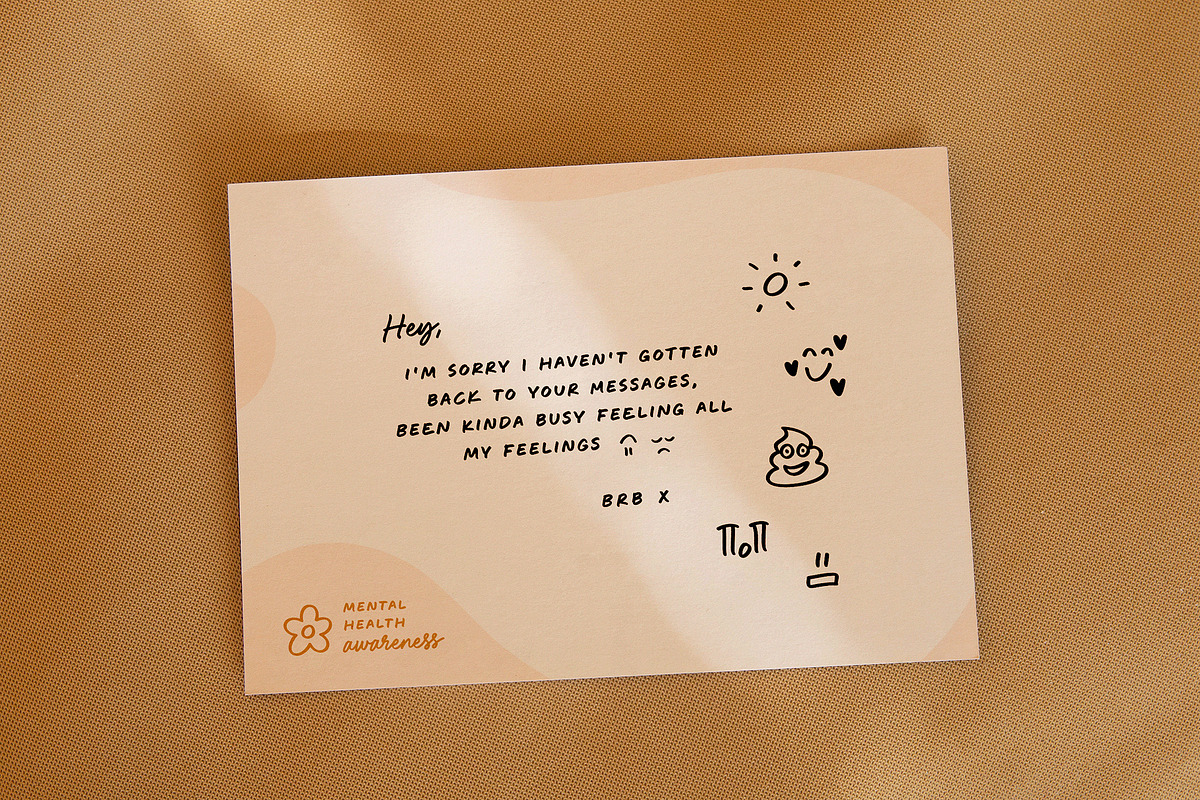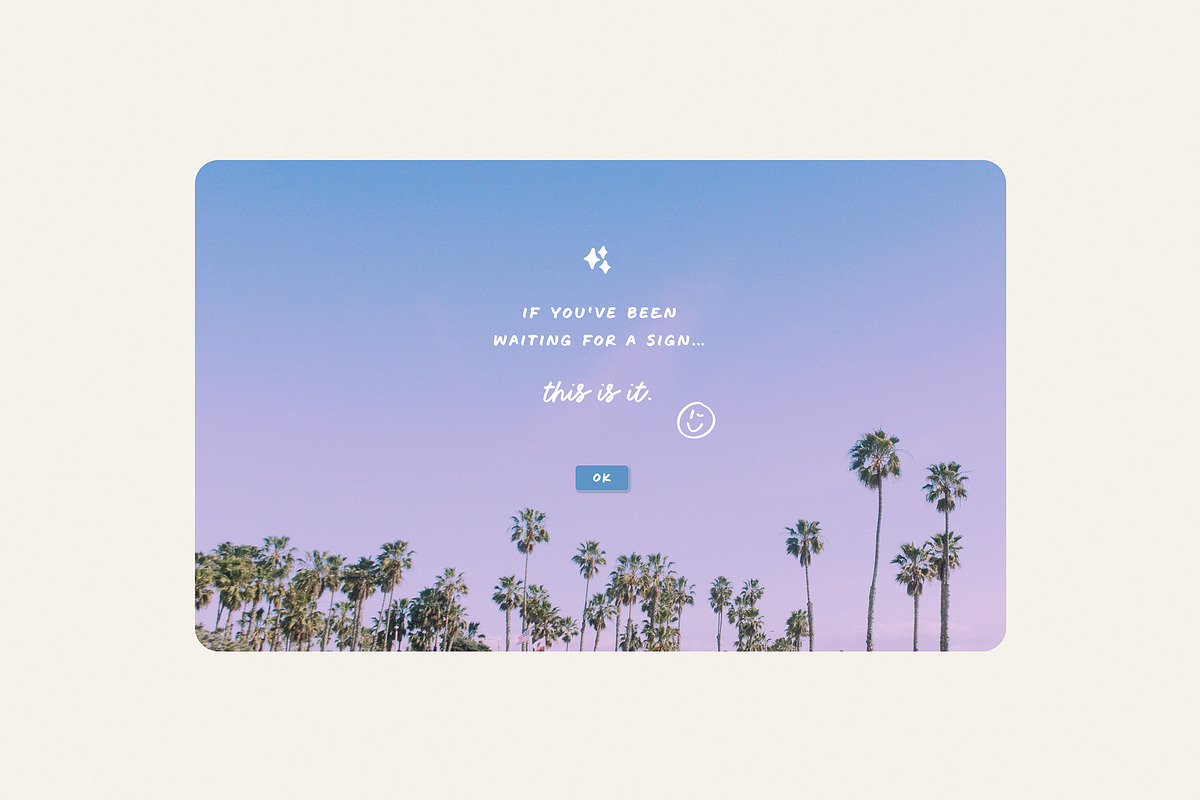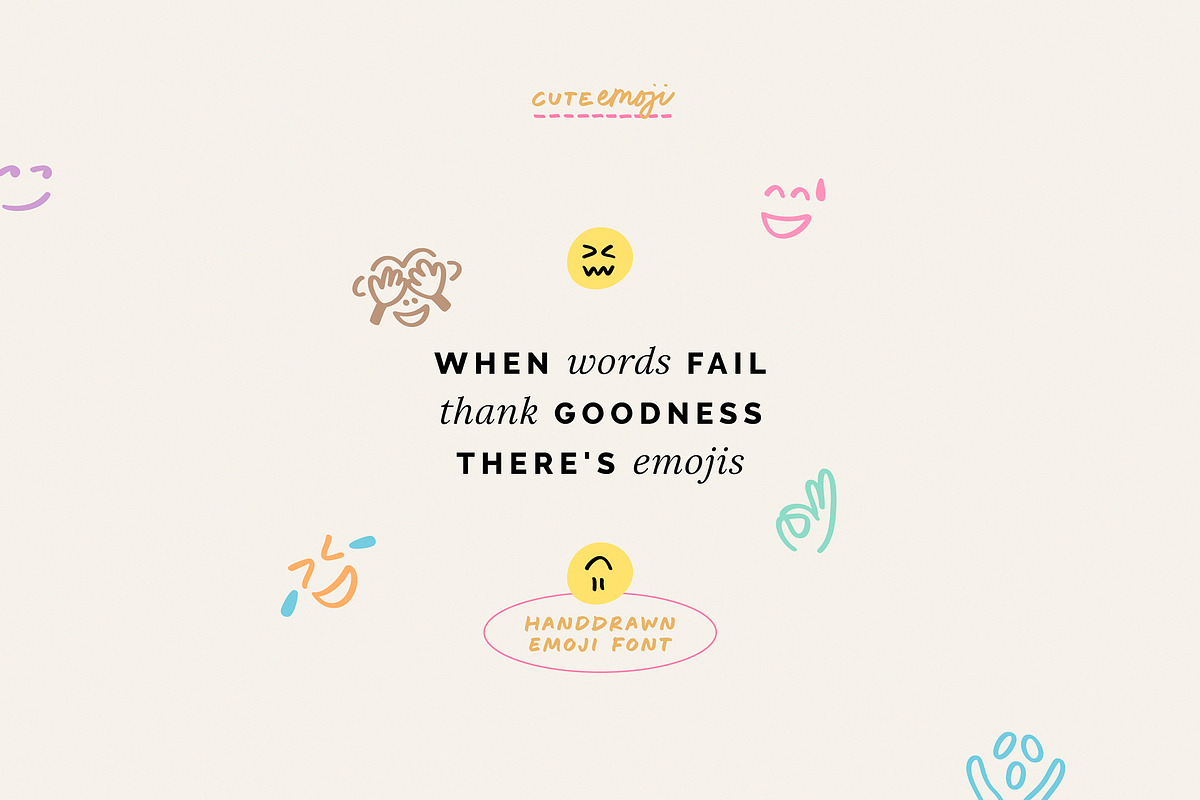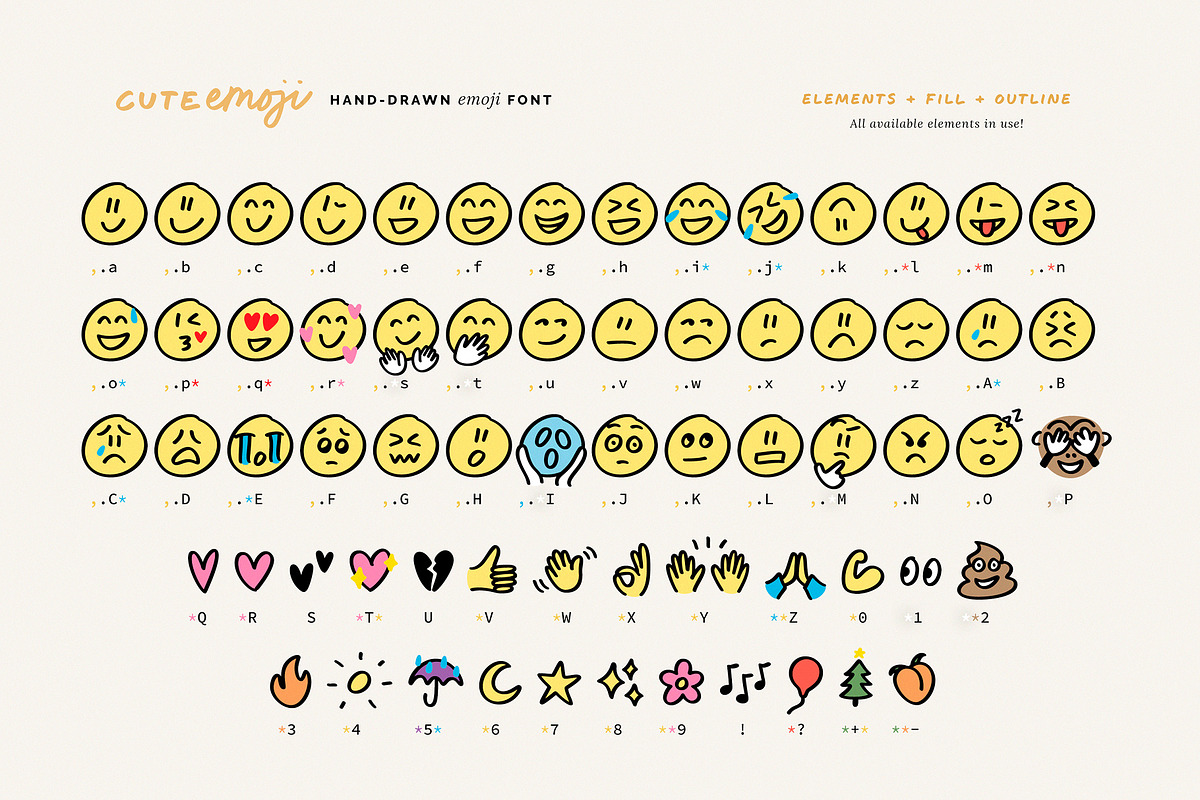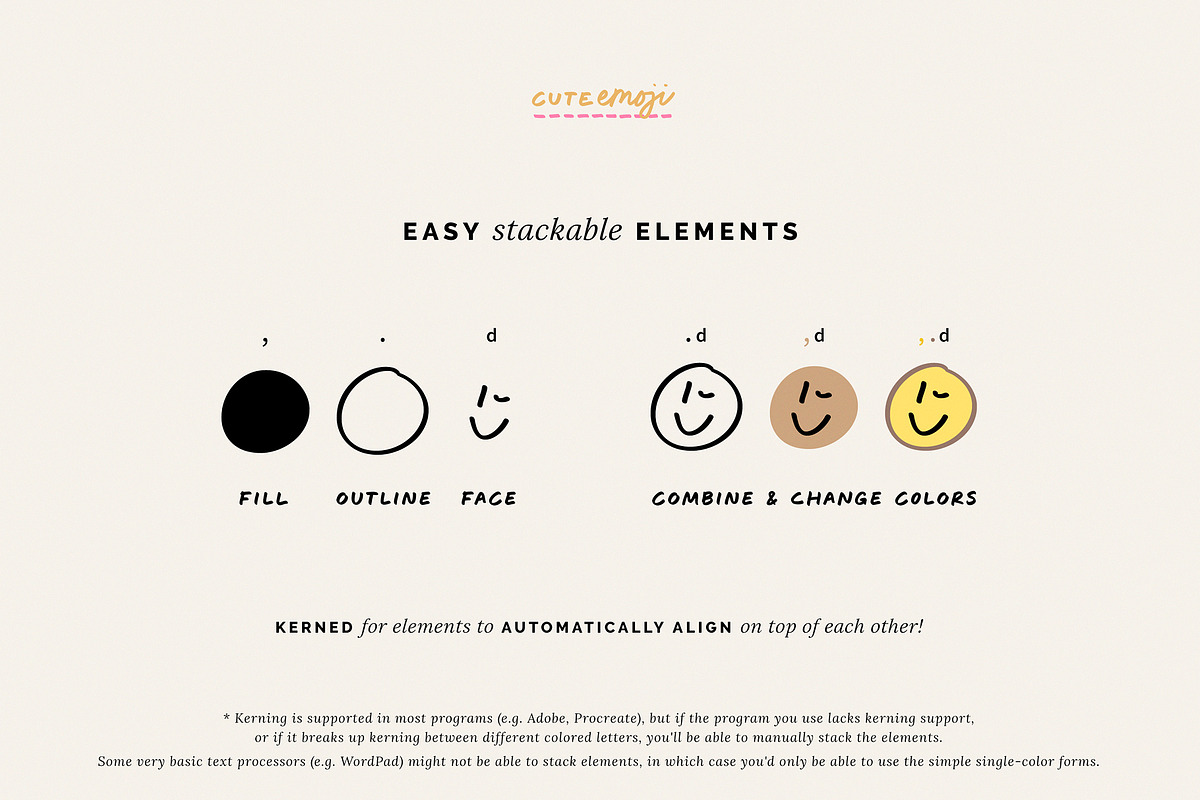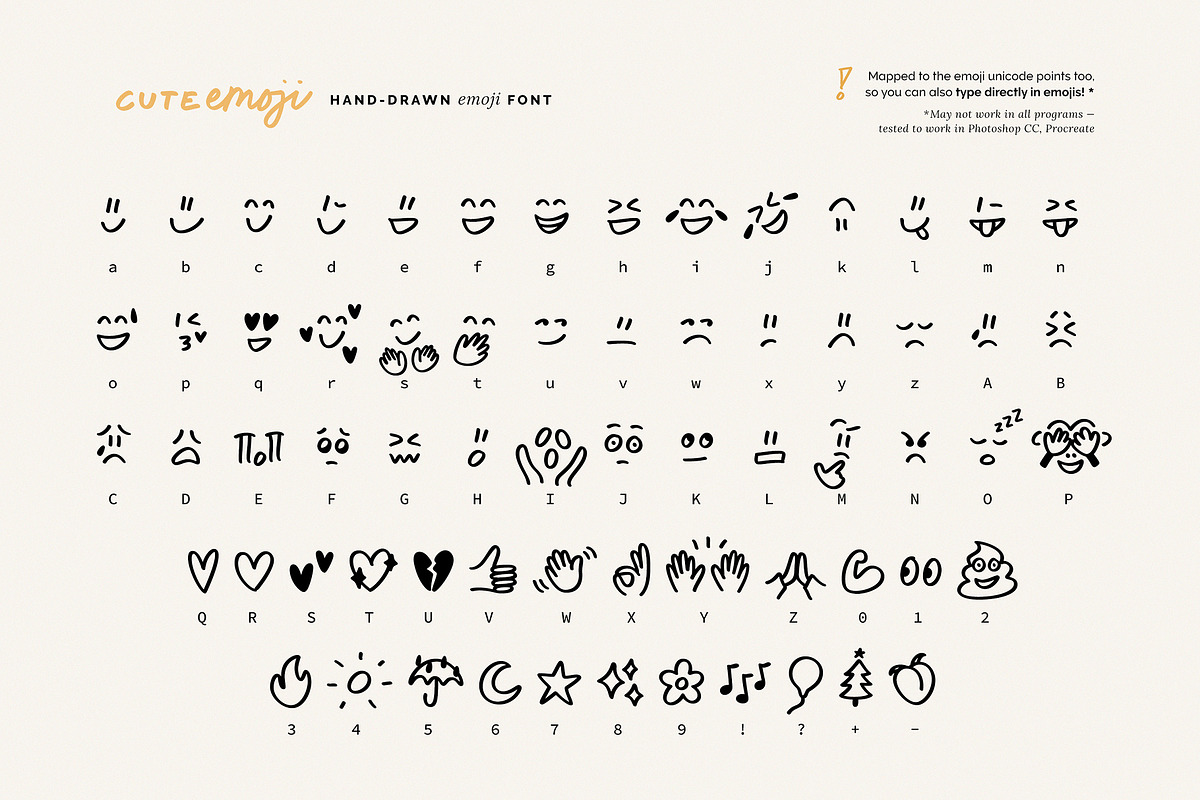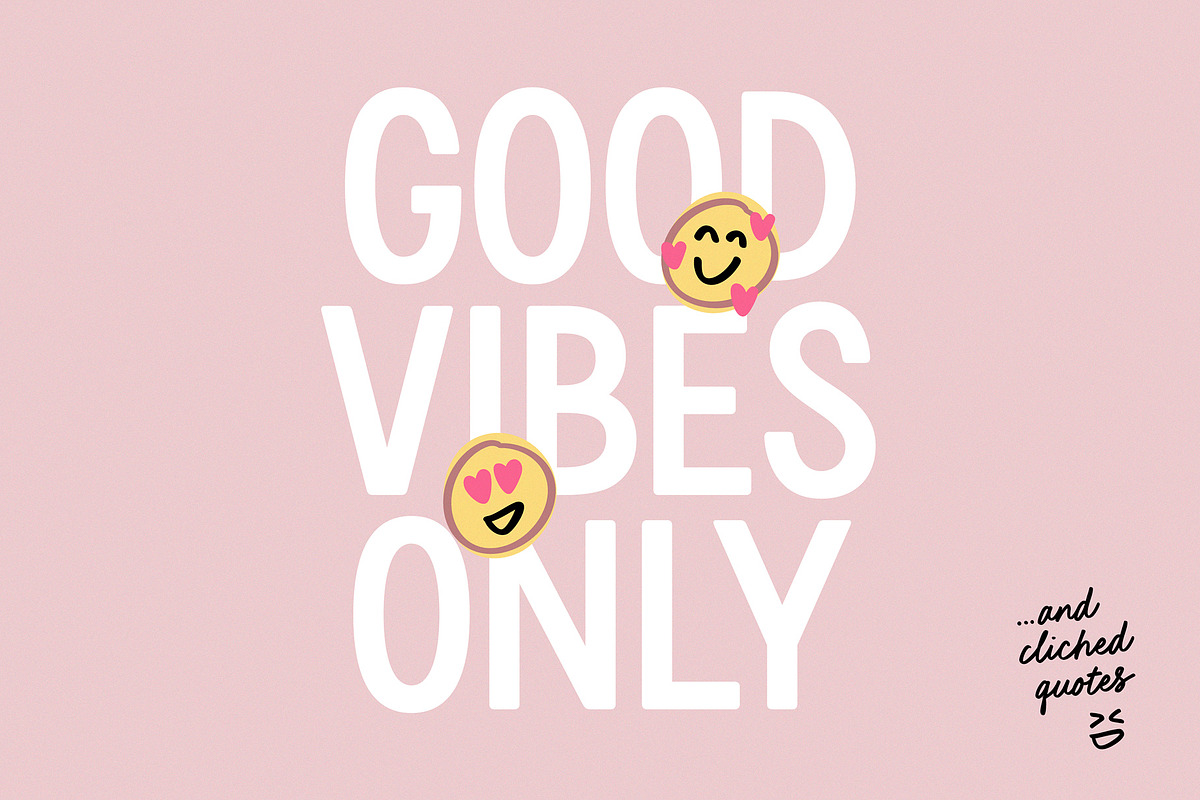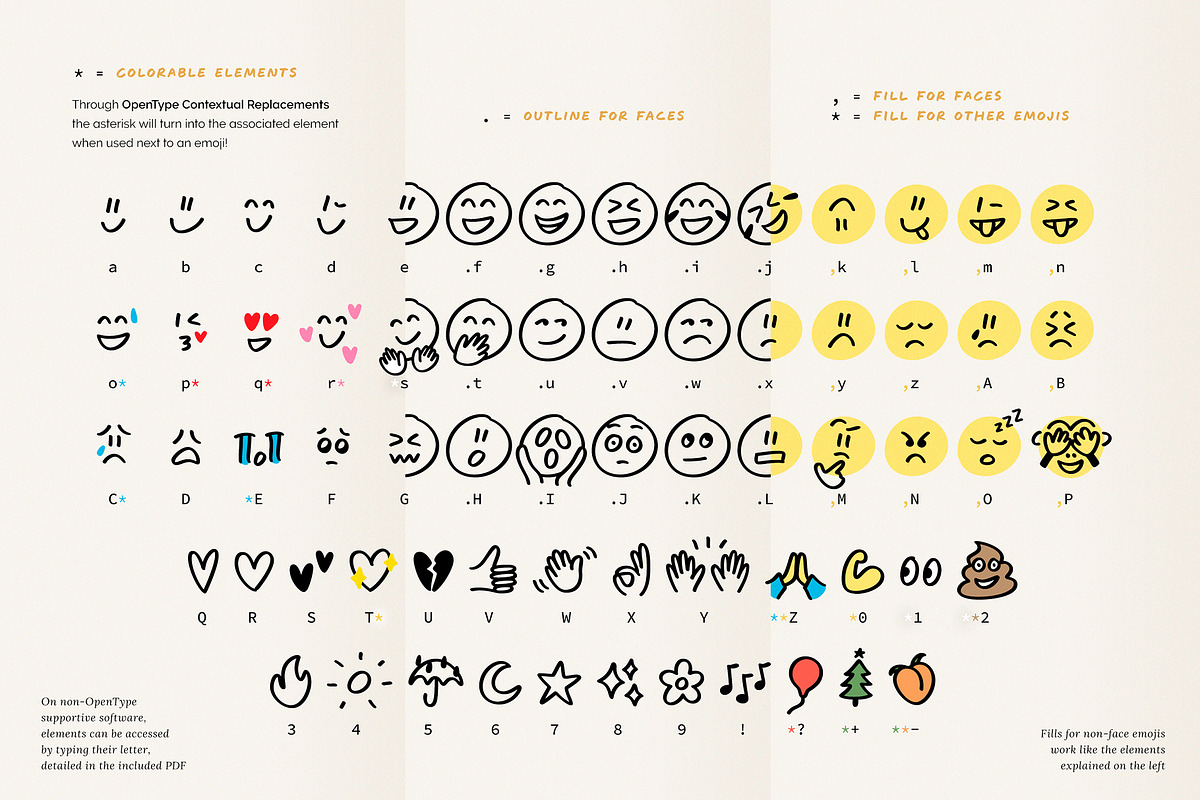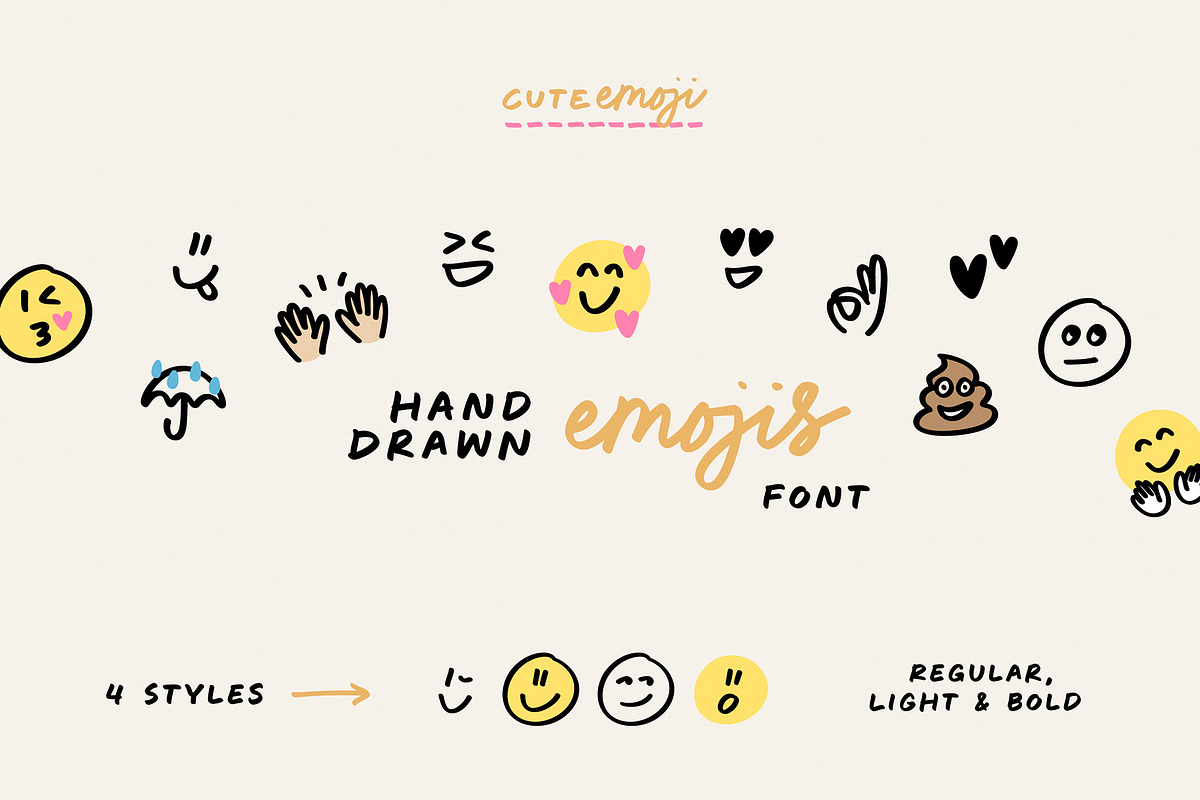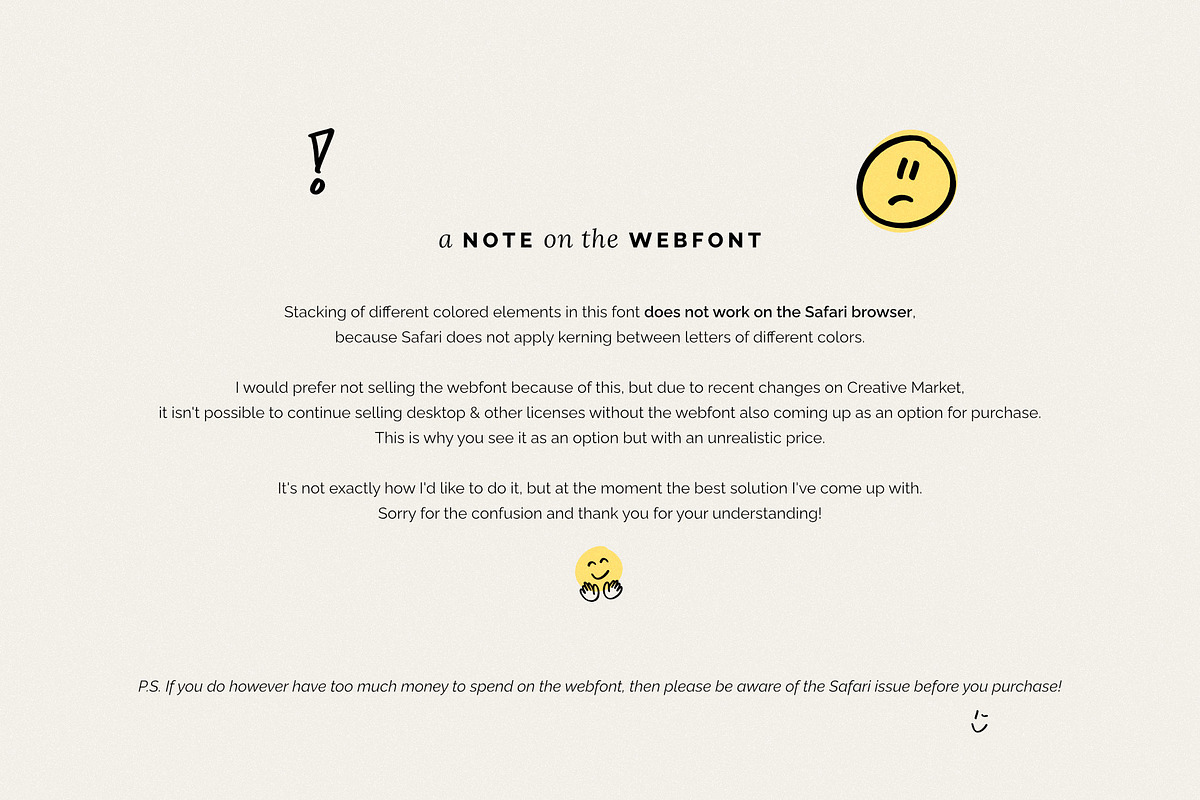
CuteEmoji hand drawn emojis font
Are you also a fan of both handwriting and emojis, often wishing you could add an emoji or two into a handwritten design? The CuteEmoji font of hand-drawn emojis is an ideal companion to bold & playful handwritten fonts - or to add a fun handmade touch into any design!
This set of 66 emojis comes in a font format, so no special software is needed to use them.* The emojis are single-color vector drawings that you can use on their own, or with the fills and elements also included in the font. By stacking these on top of each other and changing colors of the individual elements, you'll have the freedom to construct multi-color emojis exactly as you wish! All of this has been made easy by utilizing kerning & OpenType features - with workarounds for software that don't support them.
The CuteEmoji font has 3 weight options; Regular, Light & Bold. With CuteDrop font, use the Bold weight as they have the same line thickness!
*Please note that some very basic text processors (such as WordPad) might not be able to layer elements, in which case you'd only be able to use the simple single-color forms. Any graphic design program however should handle this with ease!